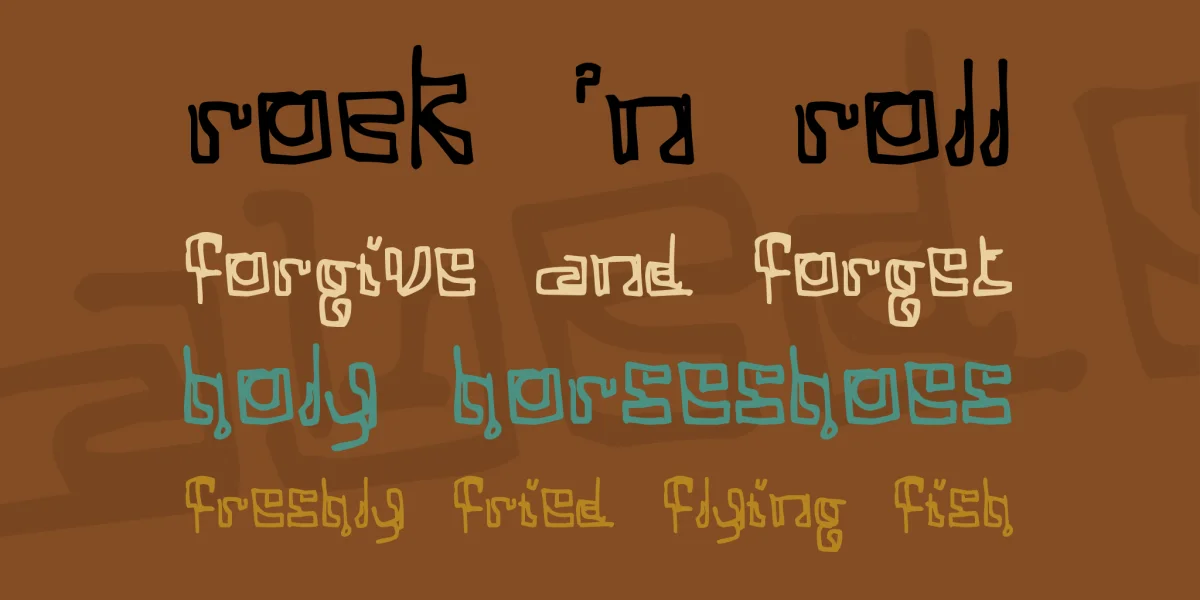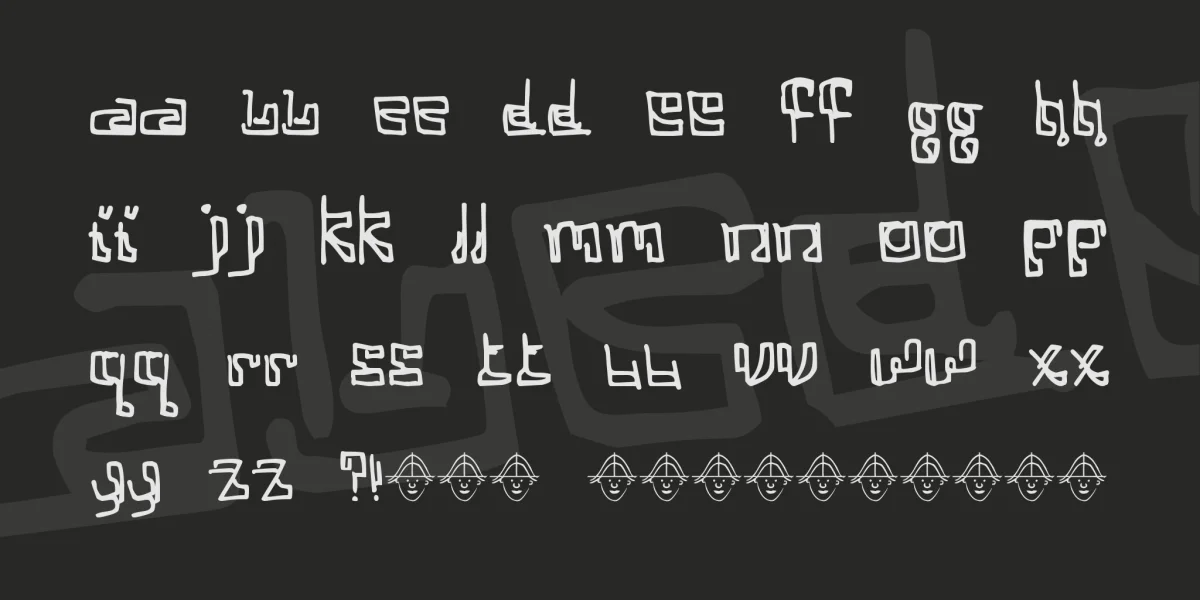
(Caps / Lower [same], some punctuation) is a strange font which I made over my Christmas Break this year with some nice new pens I got. It isn't often that I make scanned fonts, but this is one! It's got a weird futuristic grafitti look to it, and it has only the lowercase letters and a little bit of punctuation. Type one of the missing characters for a picture of Cosine Katie herself, the only girl whose hair is a trigonometric function!